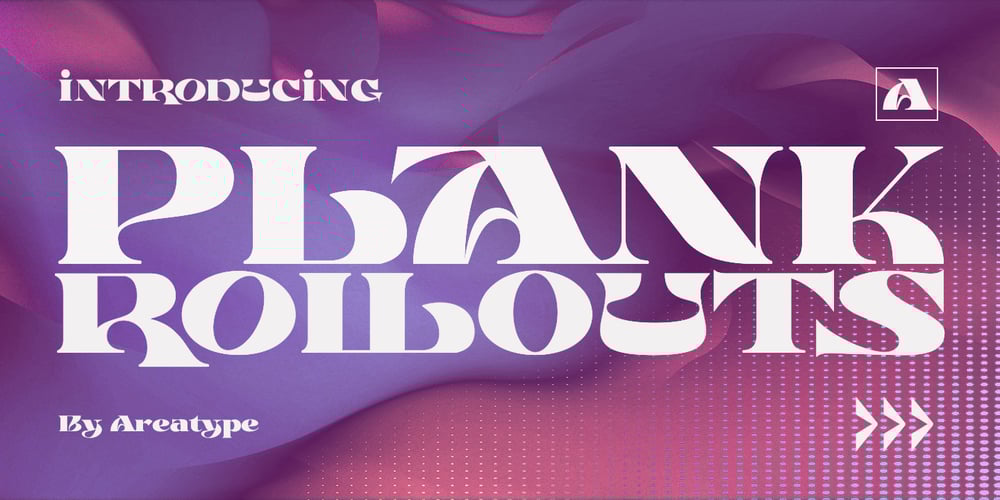
Plank Rollouts
Plank Rollouts font
Plank Rollouts Font Family was designed by Ambia and published by Areatype. Plank Rollouts contains 1 styles and family package options. Plank Rollouts is a very versatile font.perfect for magazine images, to wedding invitations, to branding, poster design, and more.Files included:Plank Rollouts RegularNumerals & PunctuationLigaturesPUA Encoded CharactersThanks so much for looking, I really hope you enjoy it and please don’t hesitate to drop me a message if you have any issues or queries 🙂